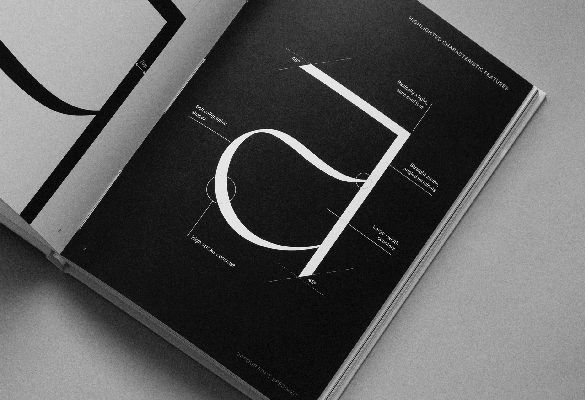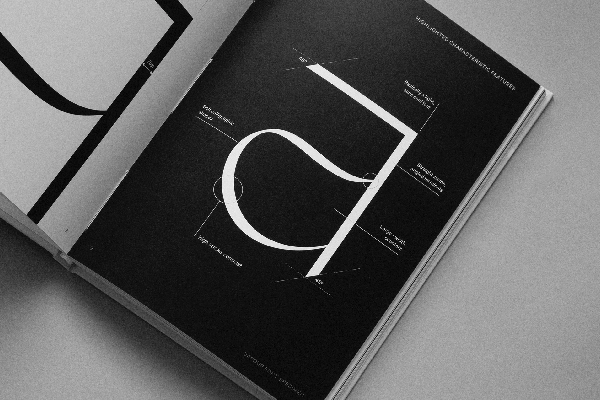
Graceful Vapour Typeface Inspired by Calligraphy by Anna Takács
Anna Takács is a talented graphic and font designer based in Budapest Hungary, with a keen eye for stylish details (previously here). Harmonious color schemes, meticulous material choices, and contemporary typography seems to be the young designers’ expertise. Takács works as part of the design studio Zwoelf‘s team (previously here), as well as on personal projects involving typography.
Anna Takács latest project, an elegant typeface inspired by calligraphy, is full of finesse and sophistication. Loaded with unique characteristics, such as straight stem and angled terminals combined with soft shapes reminiscent of calligraphy, enables typeface named Vapour feel as light and airy as hand lettering itself.
Vapour is a light calligraphic sans that combines sharp and genuine characteristics. It goes with stylistic alternates for custom variability.
The delicately strong typeface includes three stylistic options for both lowercase and uppercase characters for numerous uses and practices. The unique combination of sharp and softness offers a surprisingly balanced optical look. According to Anna Takács, the typeface will be released soon – for more information and inspiration make sure to follow the designer on Instagram.